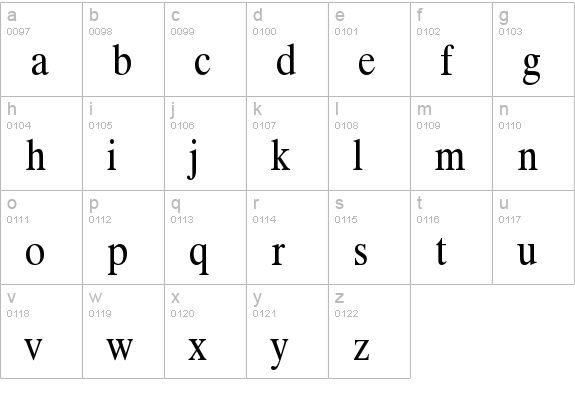
Duke Normal Font Details
Duke Normal is the standard, neutral variant in the Duke typeface family \xE2\x80\x94 well suited to general body text, paragraphs, and standard typographic work.
Duke Normal font is a versatile and modern typeface that exudes elegance and sophistication. Its clean lines and balanced proportions make it perfect for a wide range of design projects, from branding to editorial design. The Duke Normal font is not only aesthetically pleasing, but also highly legible, ensuring that your message is conveyed clearly and effectively. What sets Duke Normal font apart is that it is available for free download at FontsMarket.com, making it accessible to designers of all levels. Whether you are working on a personal project or a professional assignment, this font will elevate your design and help you achieve the desired impact. Embrace the timeless beauty and versatility of Duke Normal font, and let your creativity shine.